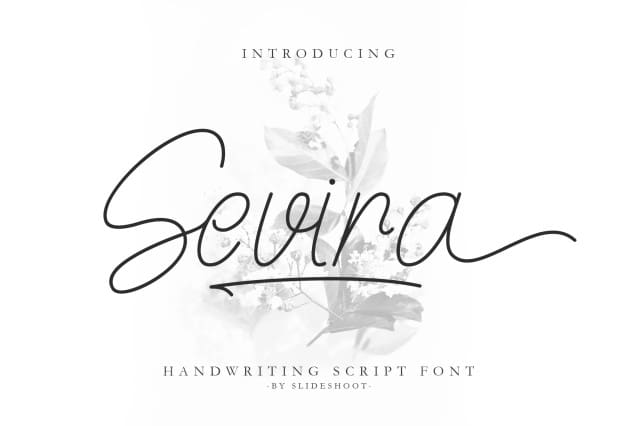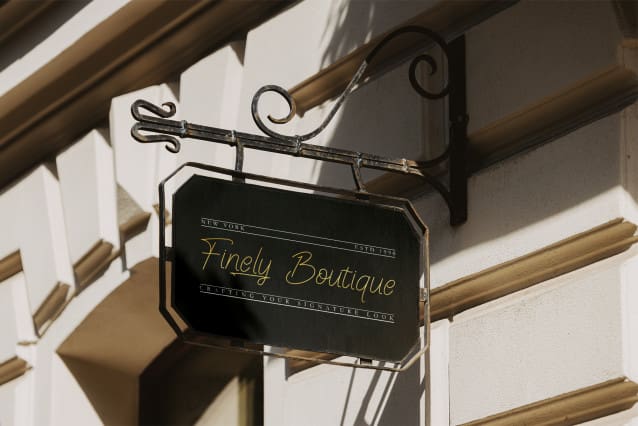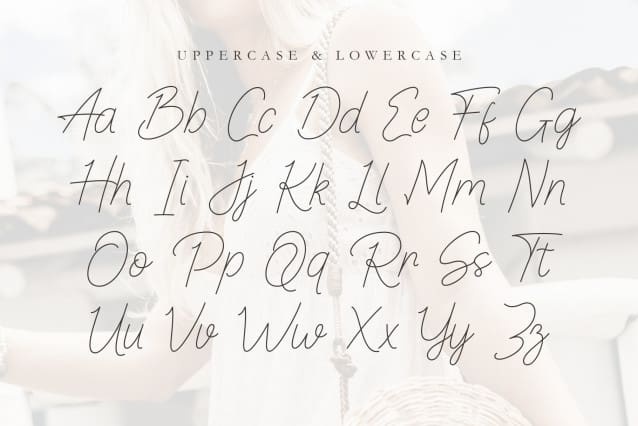
Sevira Font
Sevira Font is a smooth, elegant and stylish handwritten font. It has a beautiful and balanced character and as a result, fits into a wide set of designs.
Such as company logos, business cards, book titles, brand names, and others.Its stylish alternations and ligatures make this font the perfect partner for any project.